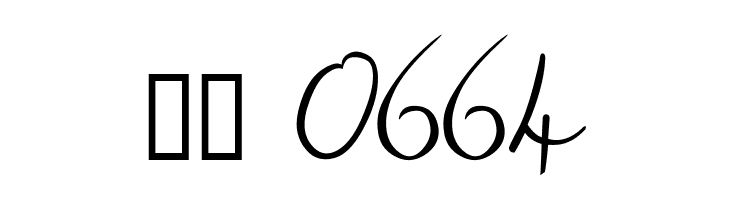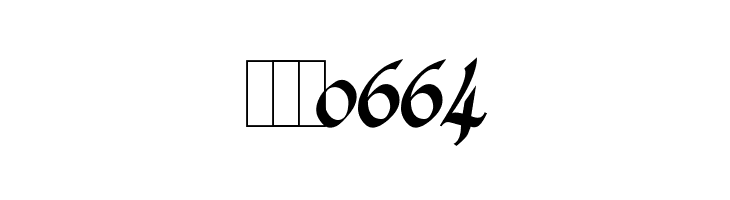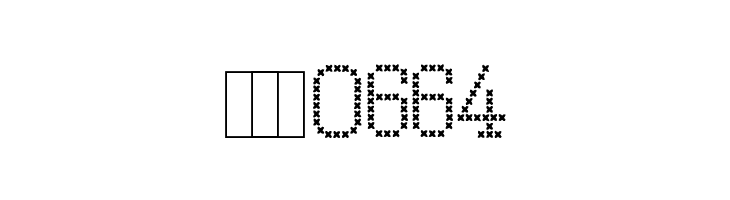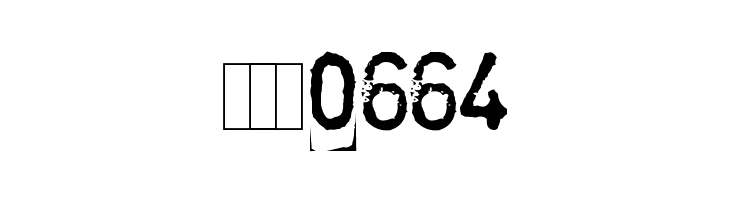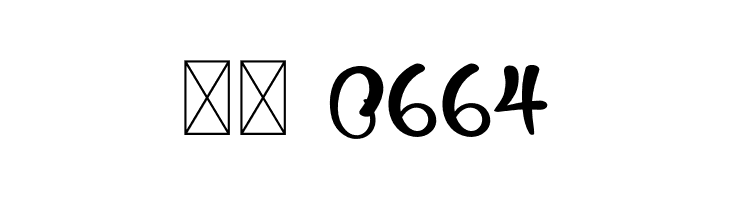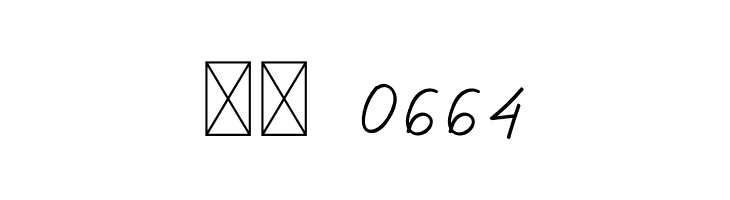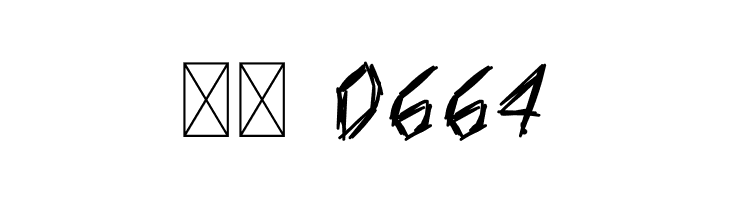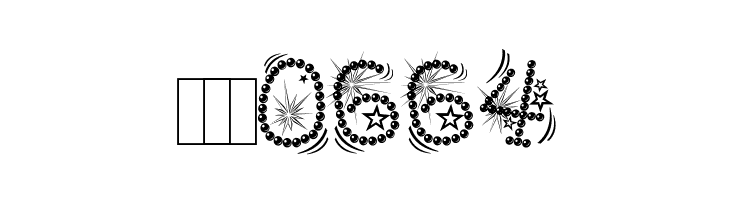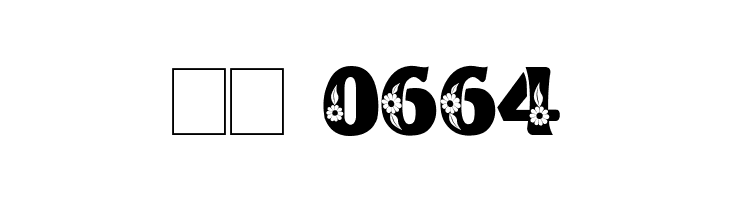
A playful and energetic script font with fluid, connected letterforms.
A playful, childlike handwritten font with irregular strokes.
A playful, hand-drawn font with tall, narrow letters and a whimsical style.
A playful handwritten font with smooth, rounded strokes and a casual style.
A playful, handwritten font with smooth curves and a casual style.
Whimsical, childlike dingbat font with playful illustrations.
A whimsical, cartoon-style font featuring playful illustrations perfect for children's projects.
Whimsical dingbat font with playful children's illustrations.
A playful, bubbly font with a hand-drawn, whimsical style.
A bold, distressed font with a vintage, layered effect.
A bold, distressed font with a layered, vintage appearance.
A bold, sketch-like font with dynamic, irregular strokes and a hand-drawn feel.
A playful, hand-drawn font with cartoon-like characters.
Modern, playful script with high contrast and decorative swashes.
An ornate and decorative font with intricate uppercase and casual lowercase styles.
A whimsical and elegant script font with flowing, interconnected letters.
A decorative, thorny font with a gothic and edgy style.
A decorative, thorny, and italicized font with a bold and edgy appearance.
A decorative font with bold, floral-themed characters and playful embellishments.
A classic calligraphic font with elegant, flowing strokes and a modern italicized style.
A whimsical and decorative font with star-like bursts and circular embellishments.
A playful, geometric font with bold lines and circular accents.
A geometric and playful font with linear and dot elements, offering a modern and artistic style.
A decorative and artistic font with intricate patterns and embellishments.
A textured, handcrafted font with a bold, artistic style.
A textured, vintage-style font with a distressed, handcrafted appearance.
A bold, ornate Blackletter font with gothic and medieval influences.
An ornate and decorative font with intricate details and bold strokes.
A sophisticated handwritten font with elegant, flowing strokes.
A decorative font with a cross-stitch pattern, resembling traditional embroidery.
A bold, angular font with a futuristic and dynamic style.